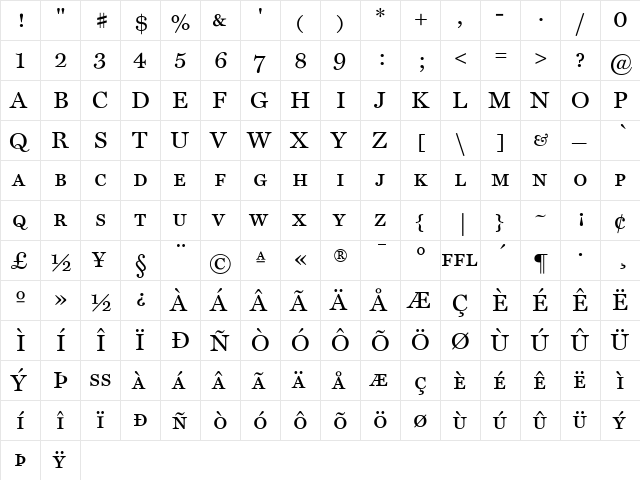
MillerText Regular
Design Context for MillerText Typeface
MillerText is a composed and adaptable typeface that performs quietly and consistently across a wide range of design contexts.